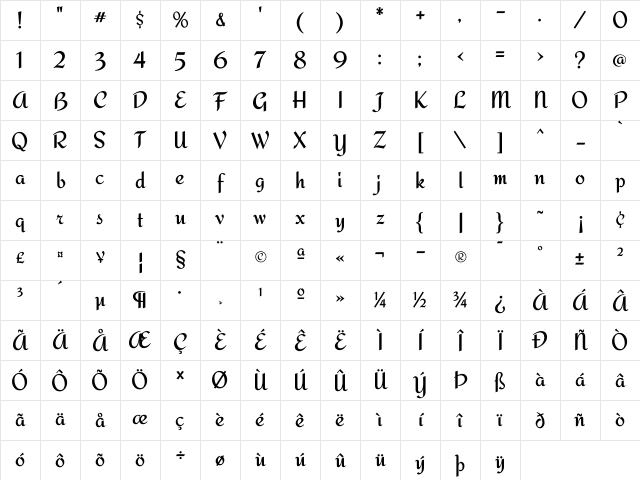
Redressed Regular
Foundry: Astigmatic (AOETI)
Designer: Astigmatic (AOETI)
Design Context for Redressed
Redressed is a composed and adaptable typeface that performs quietly and consistently across a wide range of design contexts.
Who designed the Redressed Regular font?